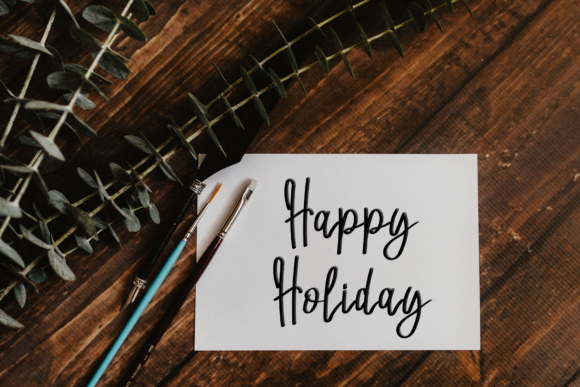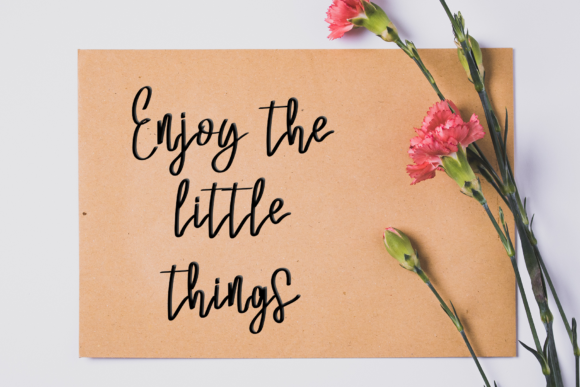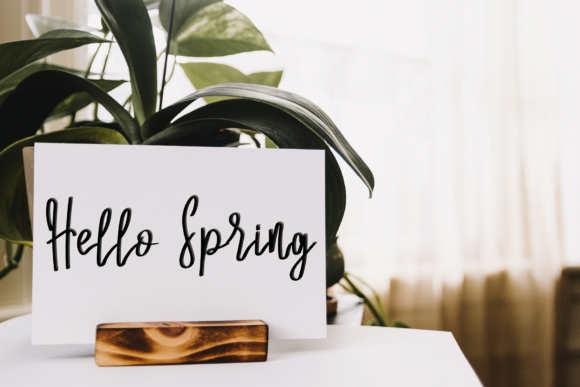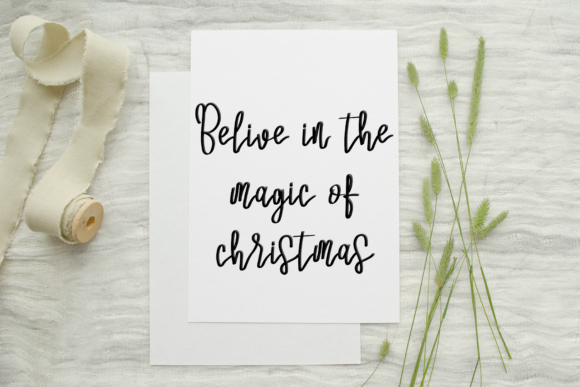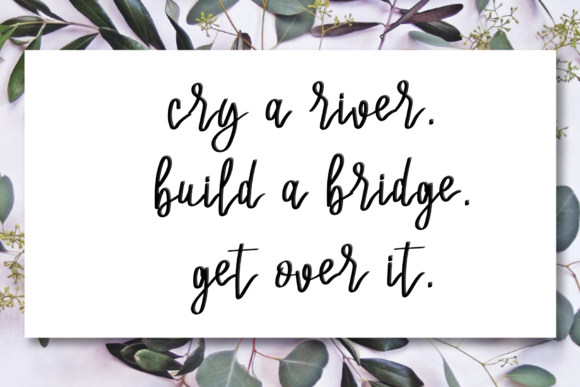
Shopping Font
About Shopping Font
Shopping is a simple, cute, and relaxed handwritten font that brings a delightful and playful touch to your designs. With its charming and casual style, this font is perfect for adding a joyful and romantic vibe to a wide range of design ideas.
The simplicity of Shopping makes it versatile and suitable for various projects. Whether you’re designing for greeting cards, invitations, social media graphics, or any other creative endeavor, this font will beautifully enhance your designs. Its effortless and carefree appearance adds a touch of whimsy and lightness, making it perfect for projects that aim to evoke a sense of joy and romance.
The cute and relaxed nature of Shopping makes it particularly well-suited for projects related to fashion, lifestyle, beauty, and retail. It can be used in branding and packaging designs for boutique shops, online stores, or any business that wants to convey a friendly and approachable image. Additionally, it can be used in advertising materials, blog graphics, and social media posts to add a touch of charm and personality.
The gentle curves and smooth strokes of Shopping give it a warm and inviting feel. The letters have a natural flow and a hand-drawn quality, adding an authentic and personal touch to your designs. This font exudes a sense of playfulness and brings a lighthearted atmosphere to any project it is used in.
In summary, Shopping is a simple, cute, and relaxed handwritten font that adds a joyful and romantic touch to your designs. Its versatility makes it suitable for a wide range of design ideas, and its charming and casual style brings a sense of playfulness and lightness to your projects. Embrace the delightful vibe of Shopping and let it add a touch of joy to each of your creations.